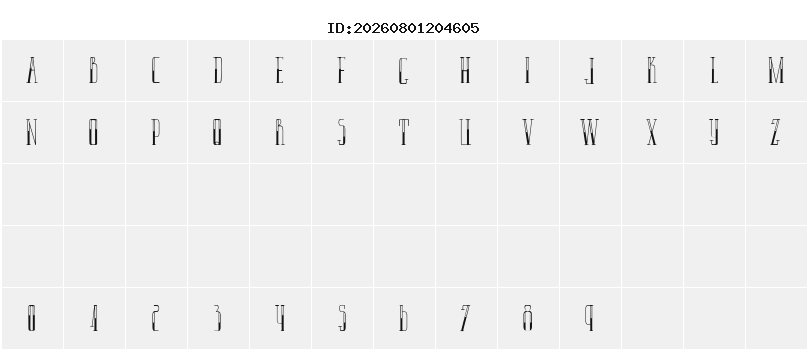
LA PANTOUFLE EN OR Preview
• Font Name: LA PANTOUFLE EN OR
• Designer: Maelle.K
• Manufacturer: Maelle.K
About LA PANTOUFLE EN OR.ttf
LA PANTOUFLE EN OR.ttf is a modern, elegant sans-serif font designed for ultimate readability and visual harmony. Perfect for branding, headlines, web design, and print materials.